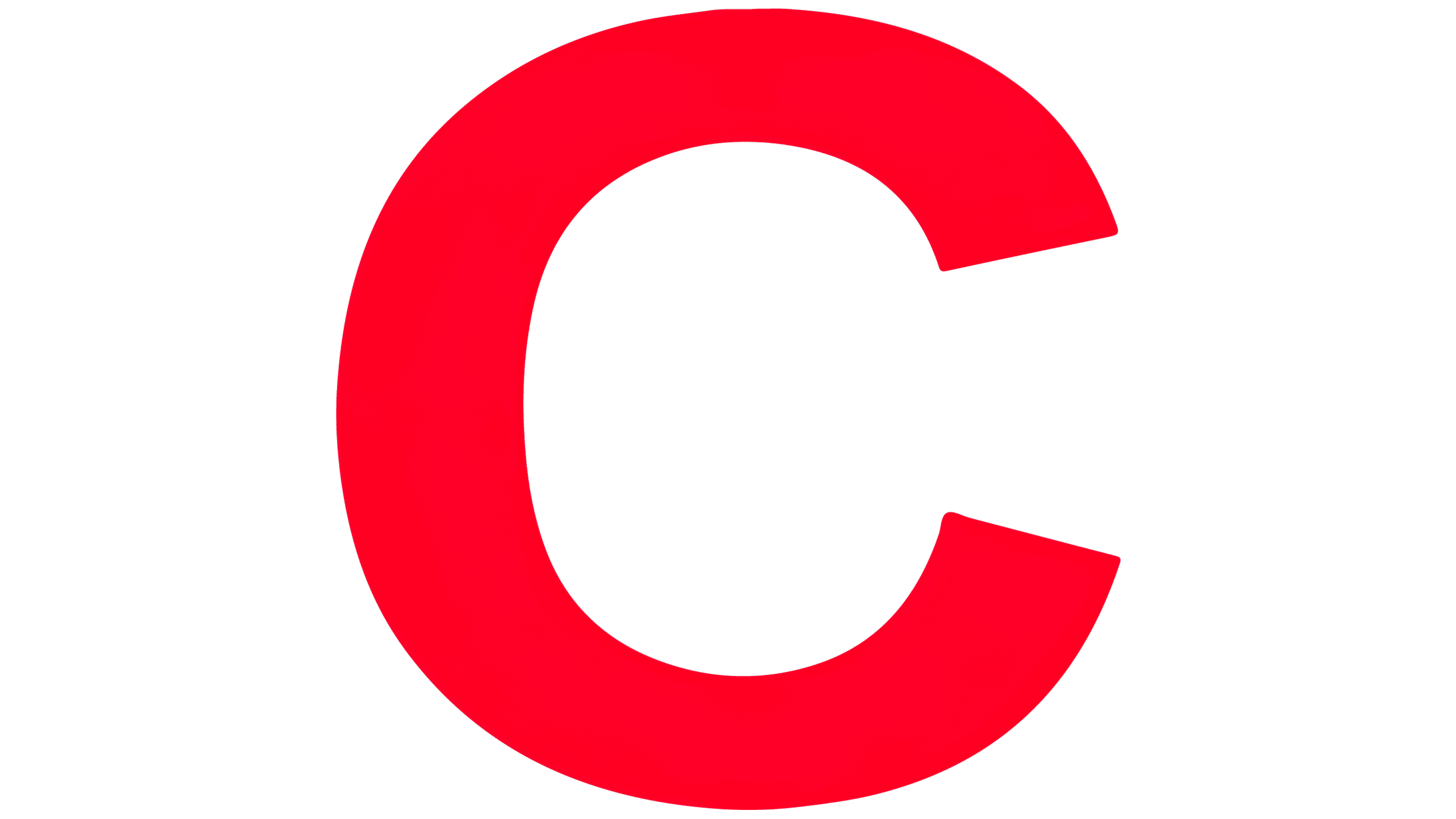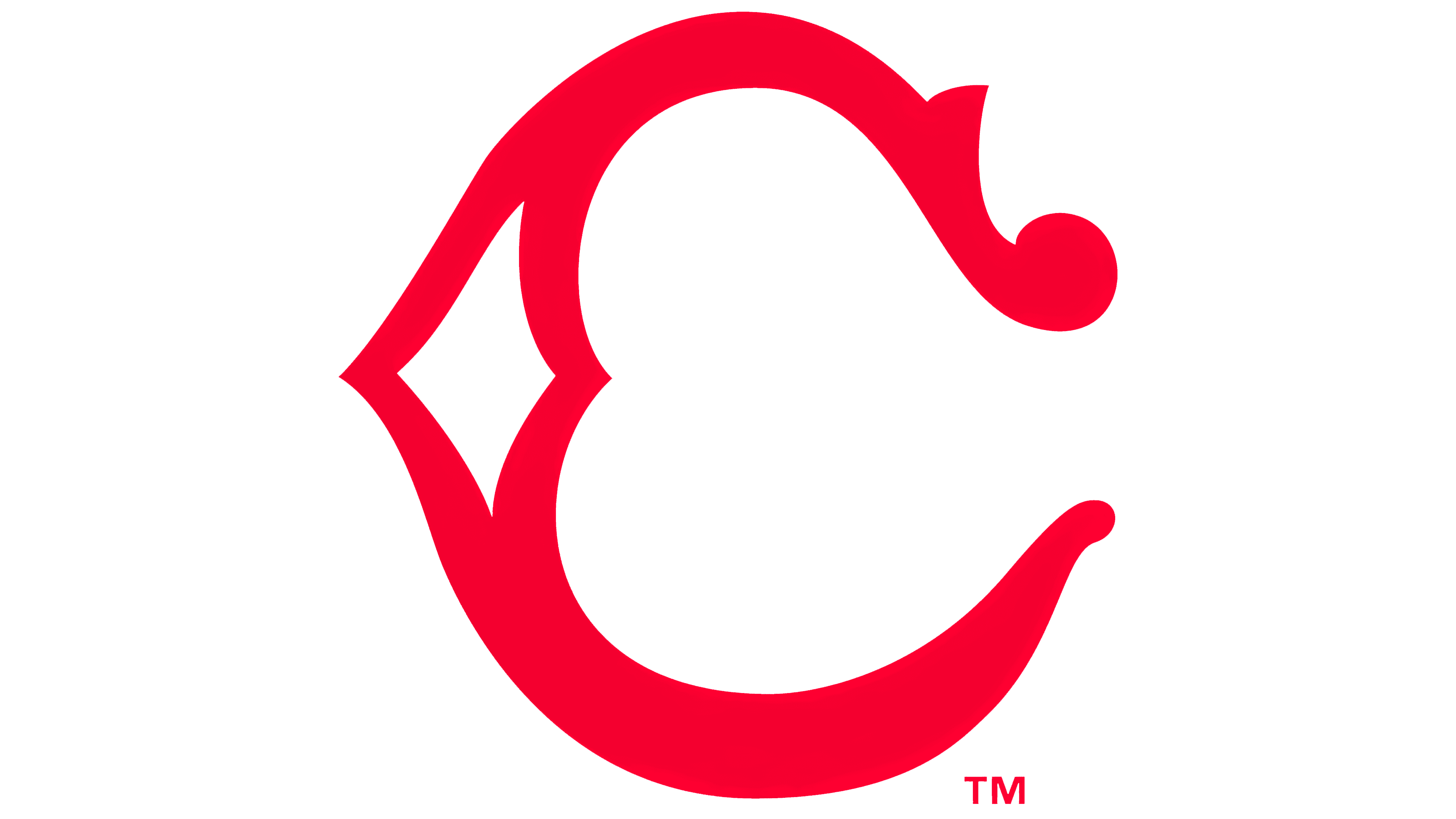
What Font Is The Cincinnati Reds Logo . ️ customize your own preview on ffonts.net to make sure it`s the right one for your designs. The mlb reds 2007 font contains 66 beautifully designed characters. A virtual museum of sports logos, uniforms and historical items. The font used in the logo is bold, solid, and commanding, reflecting the team's strength and pride. What is the cincinnati reds logo? Does anyone know which font matches, or most closely resembles the lettering on the cincinnati reds uniforms? Learn about the evolution and symbolism of the cincinnati reds logo, from its origins in the late 1800s to its contemporary design. In 2013 the cincinnati reds darkened their shade of red but kept the rest of their logos, in use since 1999, the same. A subreddit for identifying fonts: Show us a sample and we'll try to find the font.
Learn about the evolution and symbolism of the cincinnati reds logo, from its origins in the late 1800s to its contemporary design. ️ customize your own preview on ffonts.net to make sure it`s the right one for your designs. What is the cincinnati reds logo? The font used in the logo is bold, solid, and commanding, reflecting the team's strength and pride. A subreddit for identifying fonts: The mlb reds 2007 font contains 66 beautifully designed characters. Does anyone know which font matches, or most closely resembles the lettering on the cincinnati reds uniforms? In 2013 the cincinnati reds darkened their shade of red but kept the rest of their logos, in use since 1999, the same. Show us a sample and we'll try to find the font. A virtual museum of sports logos, uniforms and historical items.
What Font Is The Cincinnati Reds Logo The mlb reds 2007 font contains 66 beautifully designed characters. In 2013 the cincinnati reds darkened their shade of red but kept the rest of their logos, in use since 1999, the same. Show us a sample and we'll try to find the font. A virtual museum of sports logos, uniforms and historical items. ️ customize your own preview on ffonts.net to make sure it`s the right one for your designs. The font used in the logo is bold, solid, and commanding, reflecting the team's strength and pride. What is the cincinnati reds logo? Learn about the evolution and symbolism of the cincinnati reds logo, from its origins in the late 1800s to its contemporary design. The mlb reds 2007 font contains 66 beautifully designed characters. A subreddit for identifying fonts: Does anyone know which font matches, or most closely resembles the lettering on the cincinnati reds uniforms?
Cincinnati Reds Primary Logo National League (NL) Chris Creamer's What Font Is The Cincinnati Reds Logo The font used in the logo is bold, solid, and commanding, reflecting the team's strength and pride. A subreddit for identifying fonts: A virtual museum of sports logos, uniforms and historical items. In 2013 the cincinnati reds darkened their shade of red but kept the rest of their logos, in use since 1999, the same. Show us a sample and. What Font Is The Cincinnati Reds Logo.
MLB Cincinnati Reds 2023 Font What Font Is The Cincinnati Reds Logo What is the cincinnati reds logo? Show us a sample and we'll try to find the font. Learn about the evolution and symbolism of the cincinnati reds logo, from its origins in the late 1800s to its contemporary design. Does anyone know which font matches, or most closely resembles the lettering on the cincinnati reds uniforms? A subreddit for identifying. What Font Is The Cincinnati Reds Logo.
Cincinnati Reds Logo Font What Font Is The Cincinnati Reds Logo In 2013 the cincinnati reds darkened their shade of red but kept the rest of their logos, in use since 1999, the same. ️ customize your own preview on ffonts.net to make sure it`s the right one for your designs. A virtual museum of sports logos, uniforms and historical items. Learn about the evolution and symbolism of the cincinnati reds. What Font Is The Cincinnati Reds Logo.
Cincinnati Reds Logo, symbol, meaning, history, PNG, brand What Font Is The Cincinnati Reds Logo In 2013 the cincinnati reds darkened their shade of red but kept the rest of their logos, in use since 1999, the same. The font used in the logo is bold, solid, and commanding, reflecting the team's strength and pride. The mlb reds 2007 font contains 66 beautifully designed characters. What is the cincinnati reds logo? Learn about the evolution. What Font Is The Cincinnati Reds Logo.
Cincinnati Reds Logo, symbol, meaning, history, PNG, brand What Font Is The Cincinnati Reds Logo In 2013 the cincinnati reds darkened their shade of red but kept the rest of their logos, in use since 1999, the same. Does anyone know which font matches, or most closely resembles the lettering on the cincinnati reds uniforms? Learn about the evolution and symbolism of the cincinnati reds logo, from its origins in the late 1800s to its. What Font Is The Cincinnati Reds Logo.
Cincinnati Reds Logo, symbol, meaning, history, PNG, brand What Font Is The Cincinnati Reds Logo A virtual museum of sports logos, uniforms and historical items. What is the cincinnati reds logo? The font used in the logo is bold, solid, and commanding, reflecting the team's strength and pride. The mlb reds 2007 font contains 66 beautifully designed characters. ️ customize your own preview on ffonts.net to make sure it`s the right one for your designs.. What Font Is The Cincinnati Reds Logo.